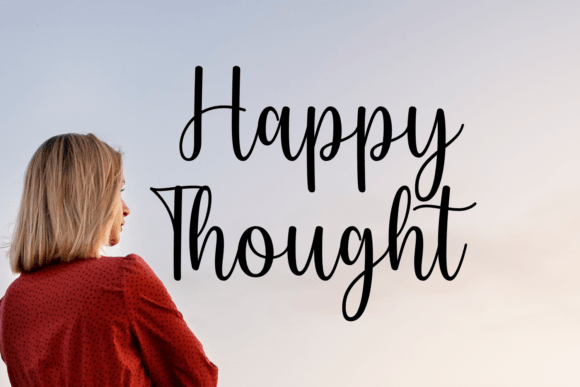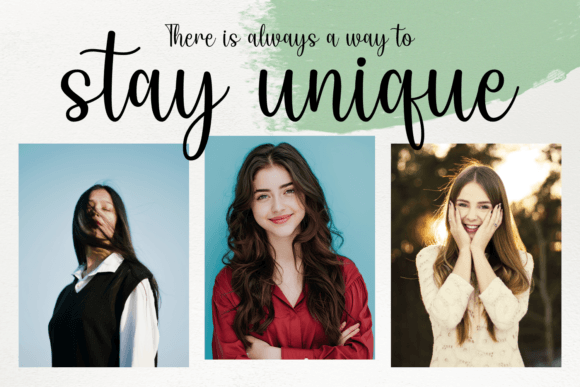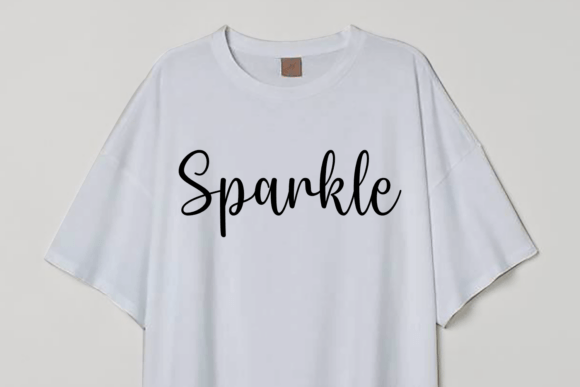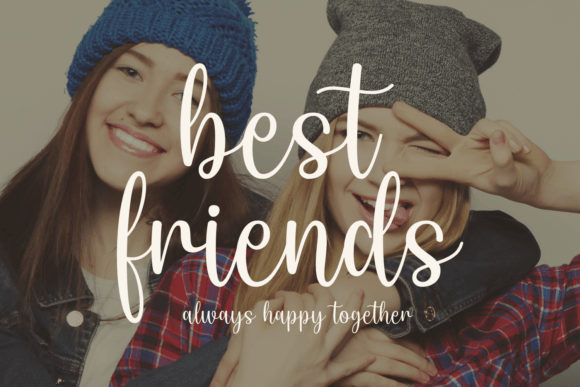
Introduction to Markye Font
As a designer, there’s nothing quite like the rush of bringing a creative project to life. You’re pouring over your latest design, and suddenly, everything falls into place. The colors, the layout, the typography – it’s all working together in perfect harmony. And then, you see it: the perfect font to tie the whole thing together. For many designers, that font is Markye Font. With its smooth, flowing lines and elegant, connected letters, Markye Font adds a modern, personal touch to any design.
Whether you’re working on a logo, invitation, or social media graphic, Markye Font is a valuable resource for designers. Its high-quality design makes it perfect for a wide range of creative projects, and the best part? It’s available as a free download, complete with a transparent background for easy customization. In this article, we’ll take a closer look at what makes Markye Font so special and how you can use it to elevate your designs.
Key Features of Markye Font
- Designed with a clean and minimalist approach, making it perfect for use in logos, branding, and other visual identity projects.
- Includes a comprehensive character set, including uppercase and lowercase letters, numbers, and special characters.
Honest Review: Markye Font
I recently stumbled upon the Markye Font while searching for a design resource to enhance my creative project. At first glance, I was impressed by its clean and modern aesthetic. The font is available for a free download, which is always a plus in my book.
What works well: ✨ The font has a transparent background, making it easy to use on various backgrounds without any distractions. It’s also incredibly versatile and can be used for a wide range of creative projects, from logos to typography-based designs.
Some notable features include:
- High-quality design that’s perfect for modern designs
However, there are some limitations: ⚠️ The font is not available in as many weights as I would have liked, which can limit its use in certain designs. Additionally, the font may not be suitable for projects that require a more rustic or vintage feel.
Overall, I’m impressed with the Markye Font and would definitely recommend it to designers looking for a high-quality, free design resource. Just be aware of its limitations and use it accordingly.
Tips for Getting the Most Out of Markye Font
For optimal results, use the Markye Font in conjunction with a high-quality image or graphic. Experiment with different font sizes and styles to create a visually appealing design. Additionally, consider using the font in conjunction with other design elements, such as shapes and icons.
The Markye Font is suitable for a wide range of creative projects, including logos, business cards, social media graphics, and presentation slides. Its high-quality design and transparent background make it an excellent choice for designers who want to create professional-looking designs quickly and easily.